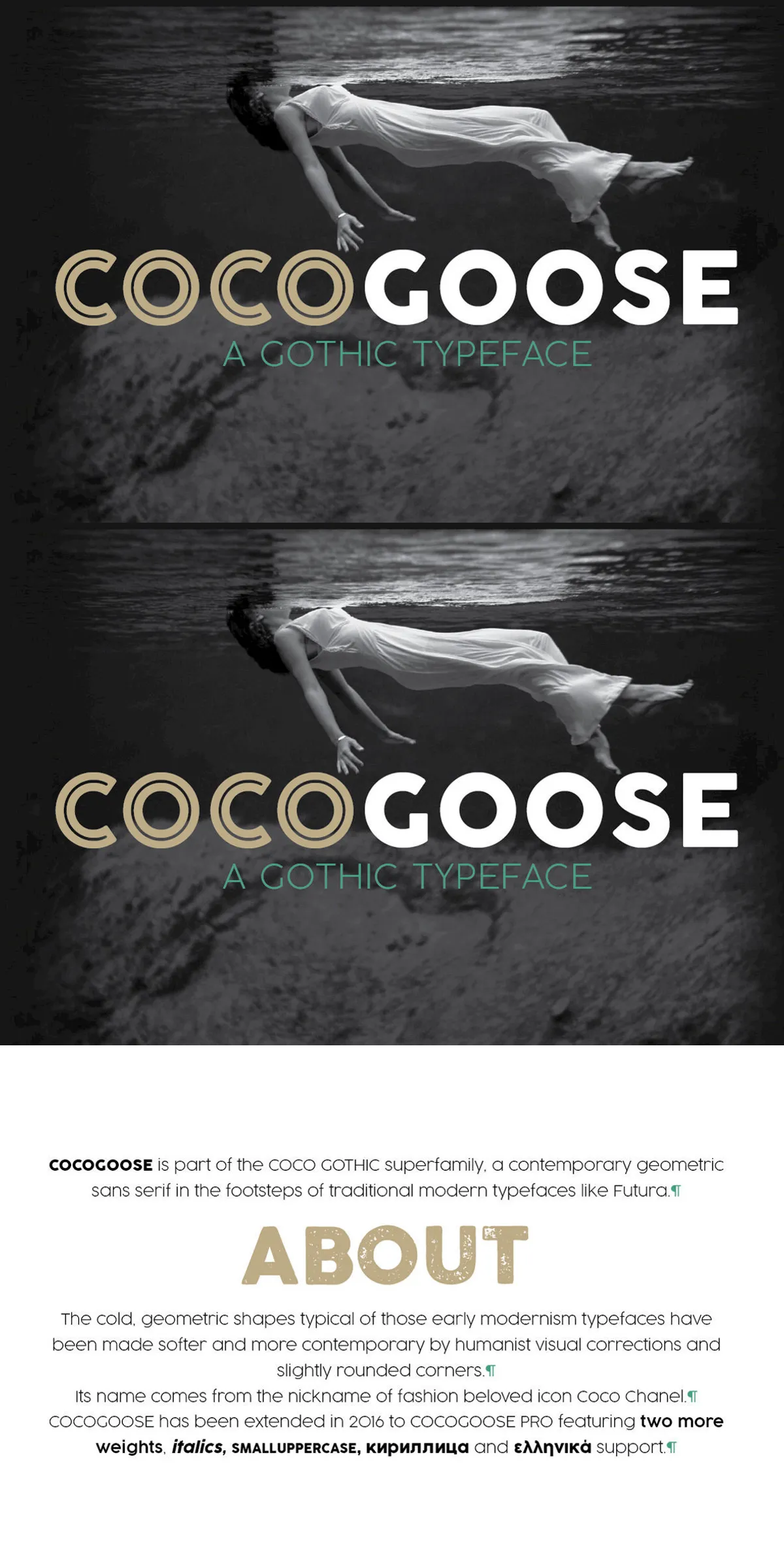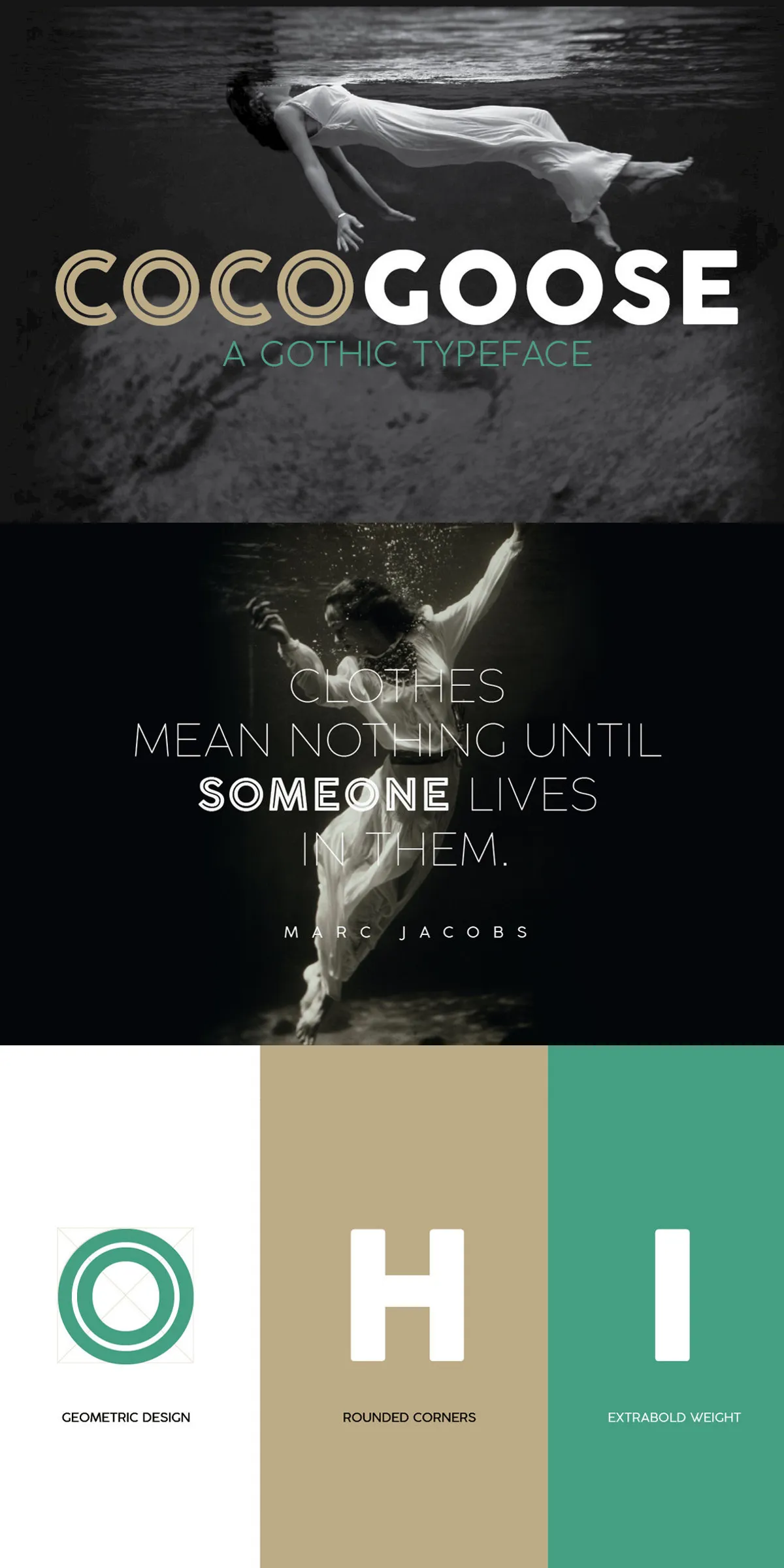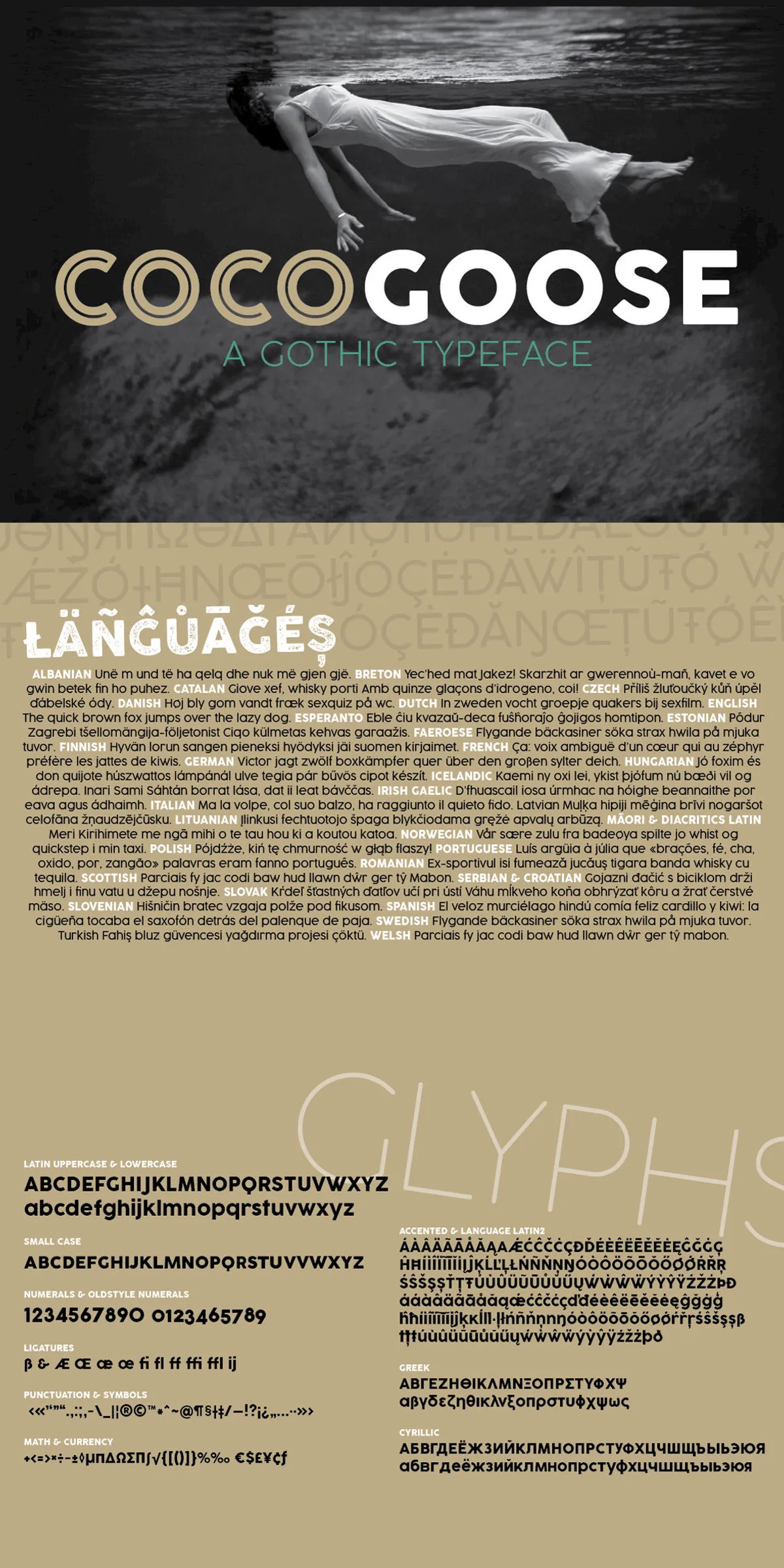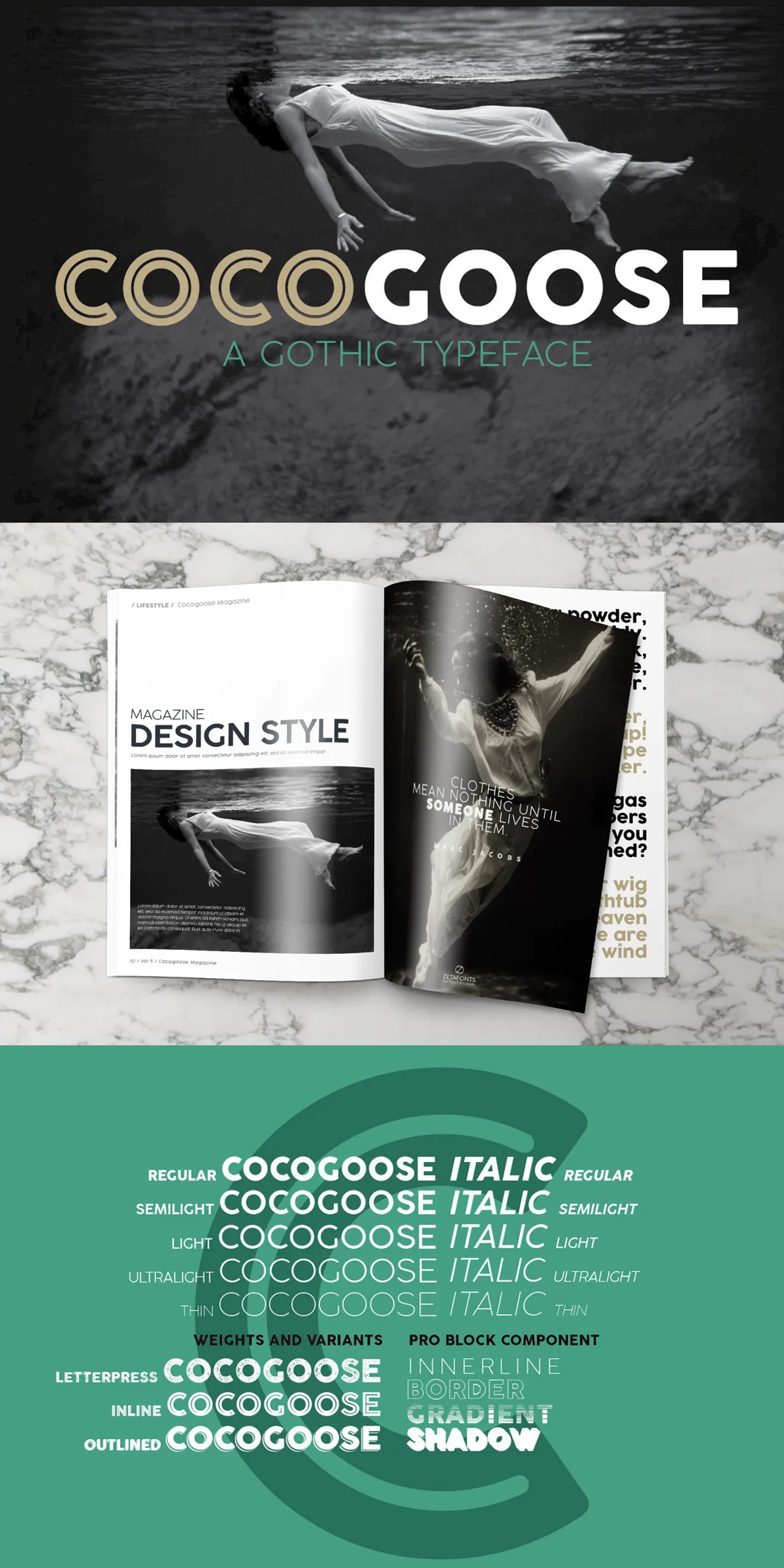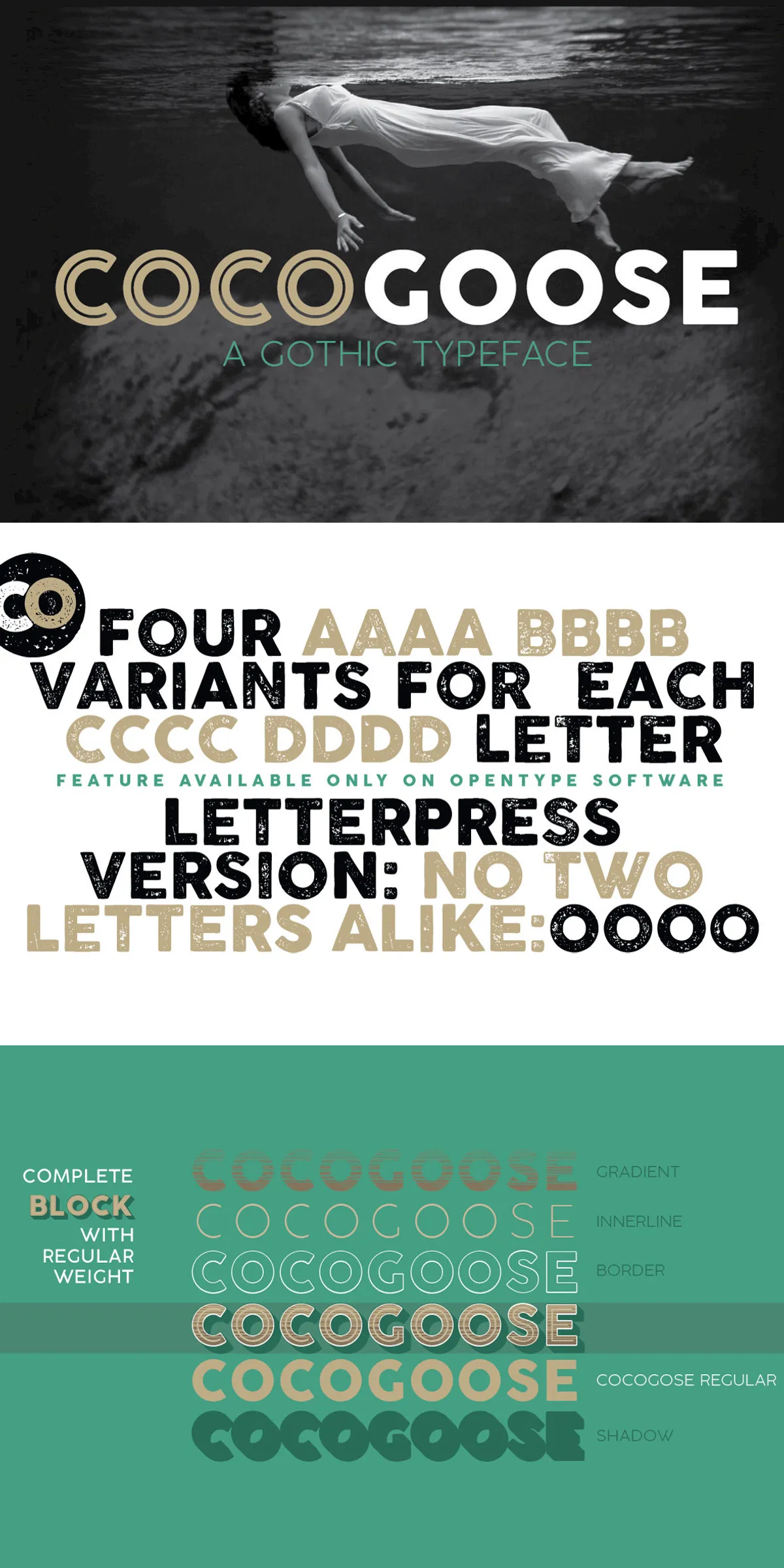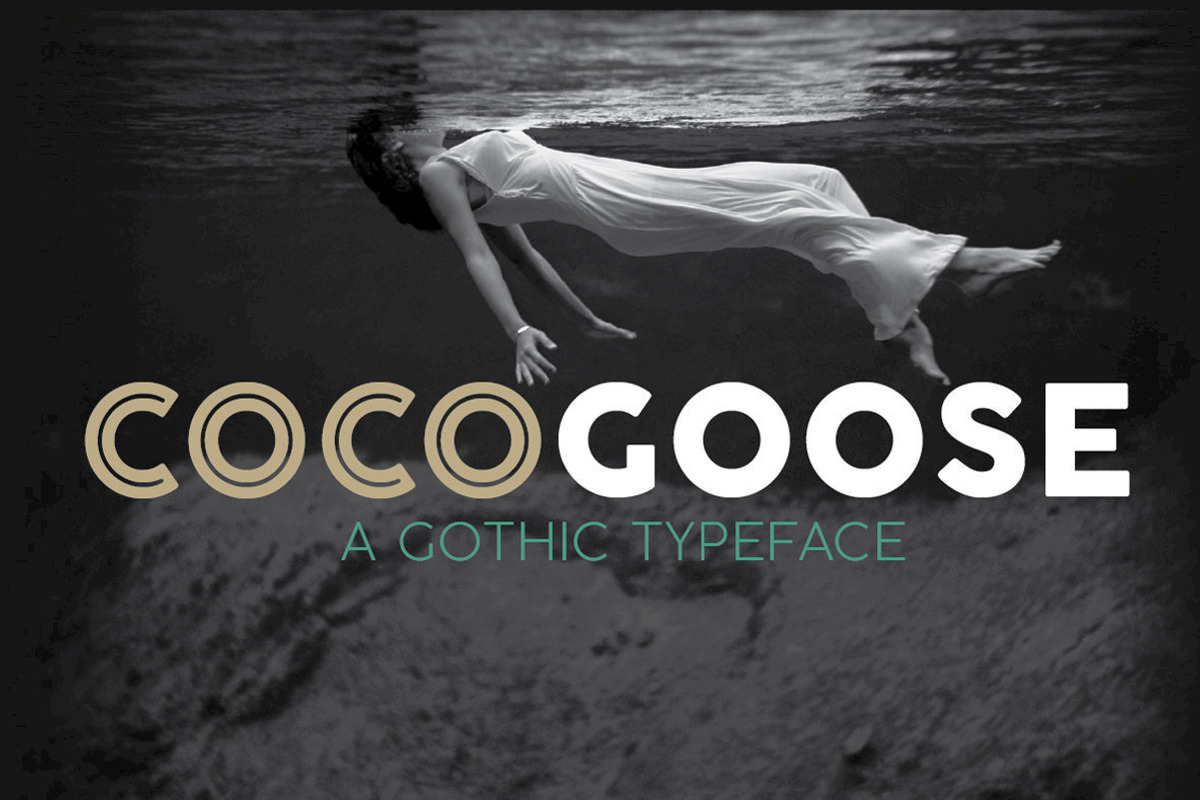
Step into the future of geometric design with Cocogoose — a bold, refined sans serif typeface that marries the clean precision of modernist architecture with the warmth of vintage design. Built from straight, monolinear strokes and balanced circular and square forms, Cocogoose delivers a look that’s simultaneously sharp, structured, and approachable. Its carefully refined design features gently rounded corners and subtle visual corrections that enhance legibility without sacrificing strength — making it not just a display powerhouse, but also a surprisingly capable text font thanks to its generous x-height and excellent screen performance.
Evolved Excellence: A Complete 2016 Redesign for the Modern Creator
Cocogoose wasn’t just updated — it was reinvented. The original 2014 release laid the foundation with its clean geometric language, but the 2016 Pro Version transformed it into a professional-grade type system built for real-world use. Every stroke, curve, and character has been meticulously recalibrated to deliver consistency, harmony, and typographic sophistication across all applications. This isn’t a superficial upgrade — it’s a foundational evolution that supports advanced design workflows and global projects.
Unmatched Feature Set for High-Impact Design
- Five Weight Variants – From delicate Thin to solid Regular, Cocogoose provides full weight control for hierarchy, contrast, and visual rhythm in any project.
- Four Display Variants – Expand your creative palette with Letterpress, Inline, Outlined, and Overlapping Decorative Forms, including unique effects like Block Shadow, Block Innerline, Block Border, and Block Gradient for dynamic headlines.
- Pro Typography Features – Includes small capitals, old style numerals, ligatures, stylistic alternates, and discretionary ligatures to elevate both text and display settings.
- Global Character Support – With full Cyrillic and Greek character sets, Cocogoose is ready for international brands, multilingual content, and global campaigns.
- Optimized for Digital Screens – Enhanced hinting and spacing ensure crisp, readable text at small sizes across web, mobile, and tablet environments.
Where Cocogoose Shines: Creative Applications That Demand Impact
Designers choose Cocogoose not just for its looks — but for its ability to solve real problems across diverse projects. Whether you’re building a brand identity, crafting a magazine layout, or launching a product, Cocogoose brings clarity, confidence, and character.
Top 6 Creative Use Cases for Cocogoose
- Brand Identity & Logo Design – Use the strong geometric forms and display variants to create iconic, memorable logos that stand out in competitive markets.
- Headlines & Display Typography – Leverage the bold weights and overlapping decorative versions for posters, movie titles, editorial spreads, and event announcements.
- Web & App Interfaces – Deploy the Regular and Light weights for clean, modern UI copy with excellent readability and performance.
- Print & Packaging Design – Perfect for luxury packaging, product labels, and retail branding, where geometric precision meets tactile elegance.
- Editorial and Magazine Layouts – Use the text-friendly variants in body copy and the display weights for striking headlines and pull quotes.
- Advertising & Campaigns – Create bold, memorable ads with layered visual treatments using the Block Shadow, Gradient, and Innerline effects.
Built for Designers, Engineered for Performance
Cocogoose isn’t just a pretty font — it’s a precision tool designed to reduce friction in your workflow. Use OpenType features to automate alternate glyphs, ligatures, and stylistic sets, minimizing manual fixes. For web use, the WOFF2 version ensures lightning-fast loading and consistent rendering across devices.
Pro Tips for Maximizing Cocogoose’s Potential
- Combine Cocogoose Light with a classic serif (like Georgia or Merriweather) for elegant contrast in editorial design.
- Use the Block Shadow and Gradient variants to create depth and dimension in digital banners and social media graphics.
- Apply the Letterpress style to text on dark backgrounds to simulate a tactile, embossed feel.
- Pair the Thin weight with bold accent colors for high-impact headlines in minimalist designs.